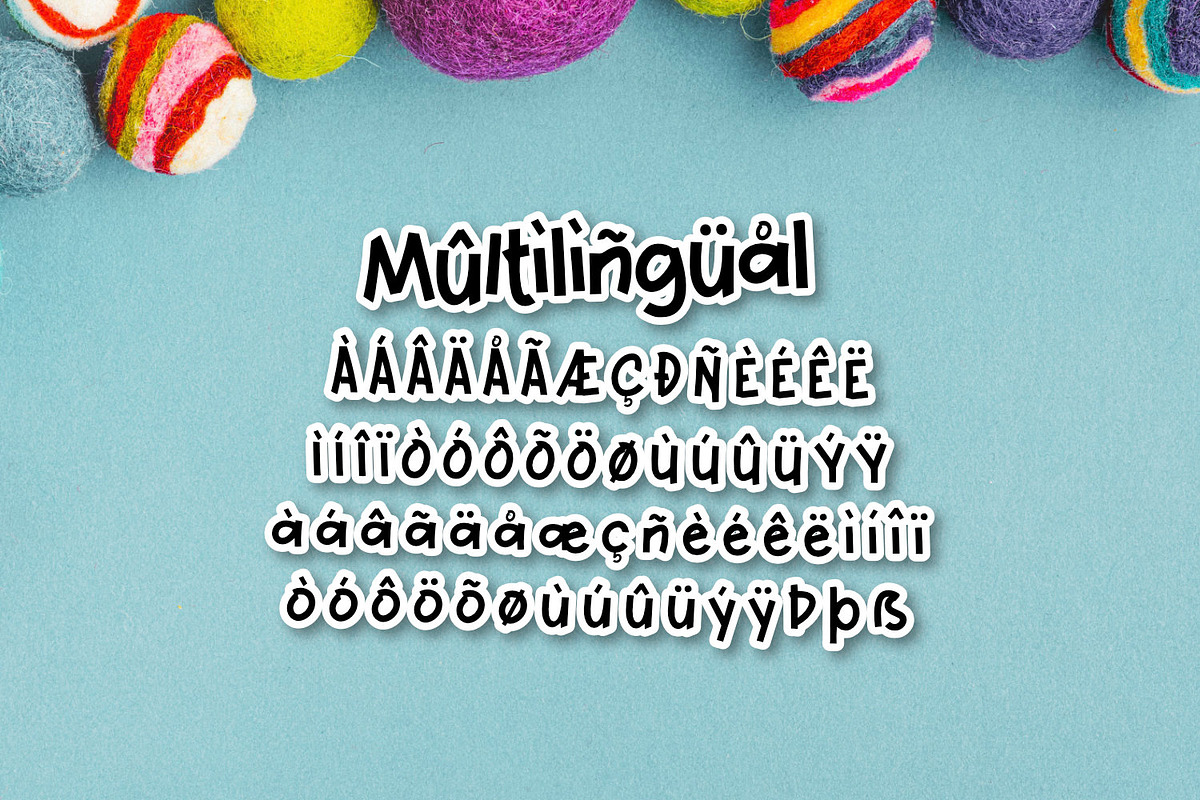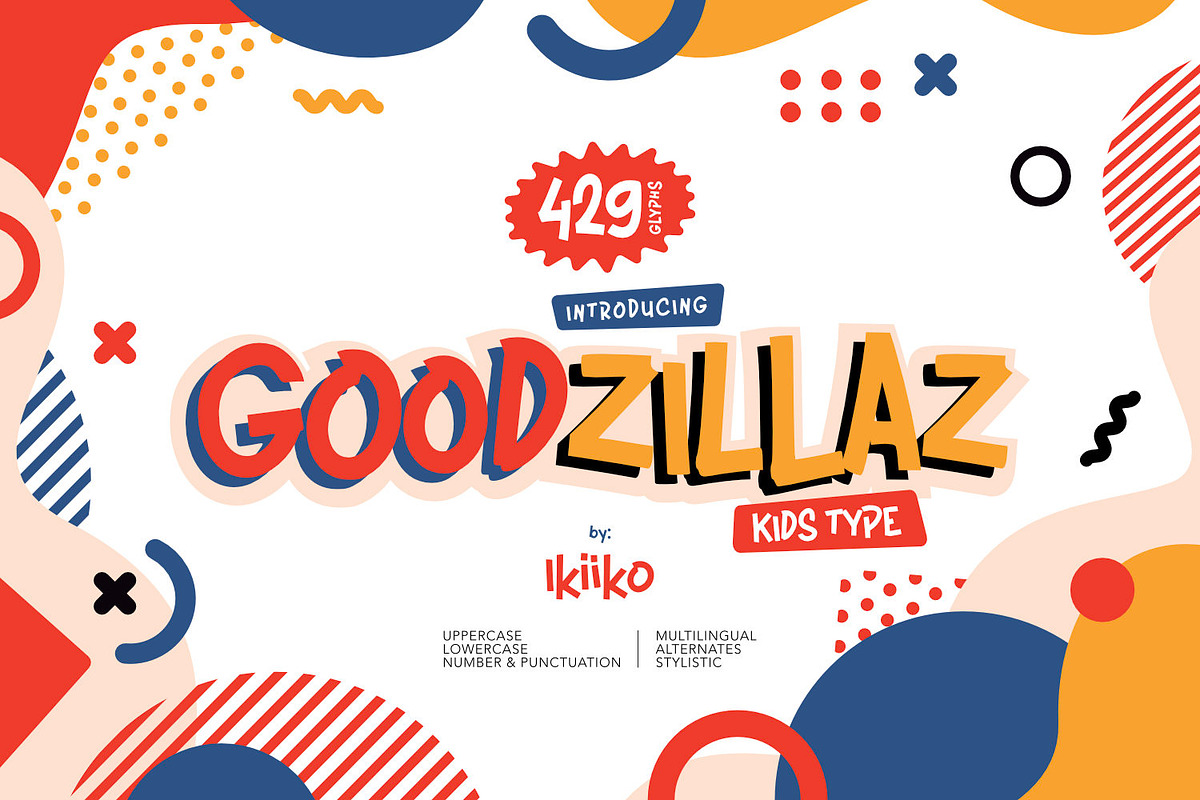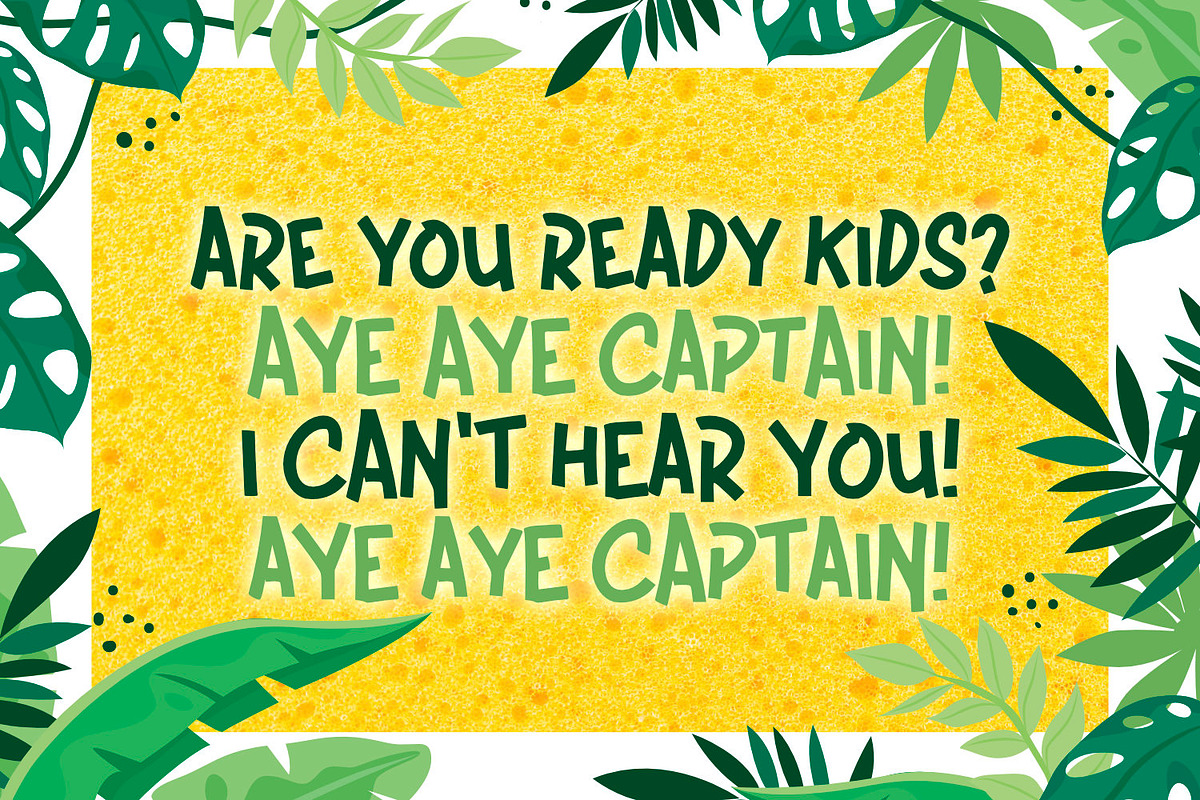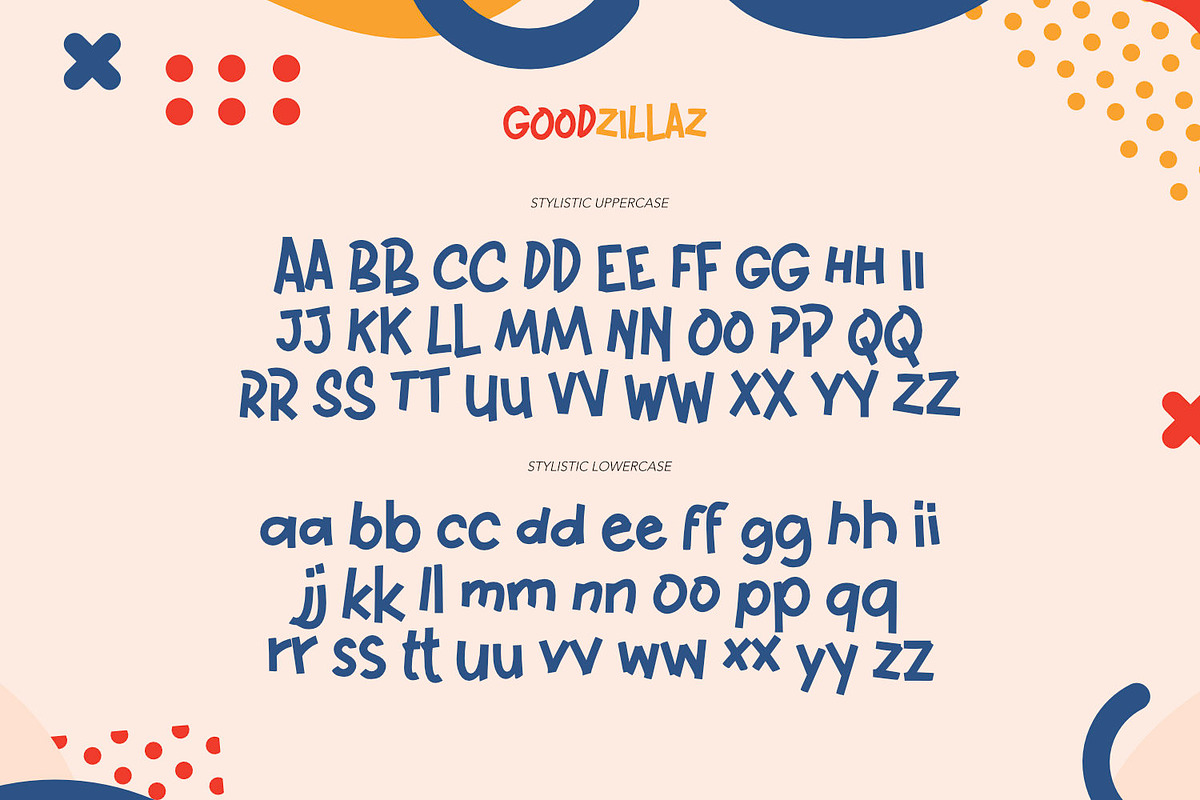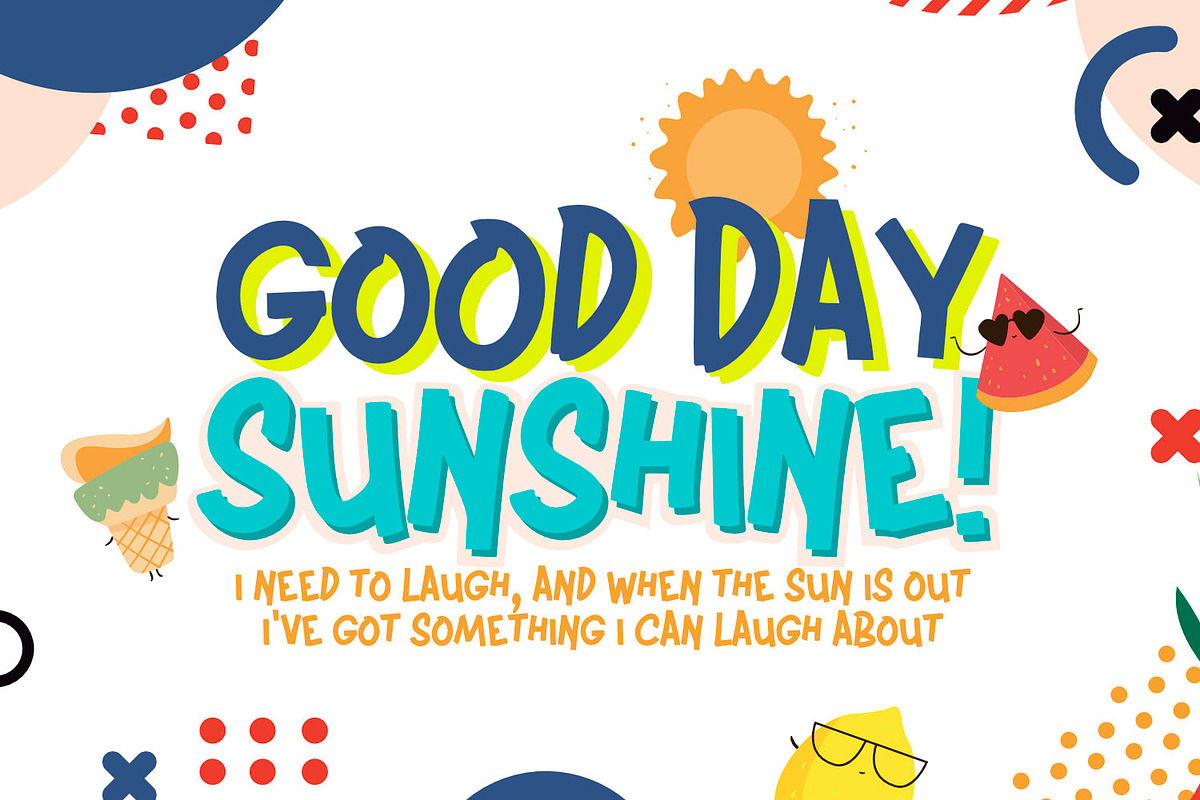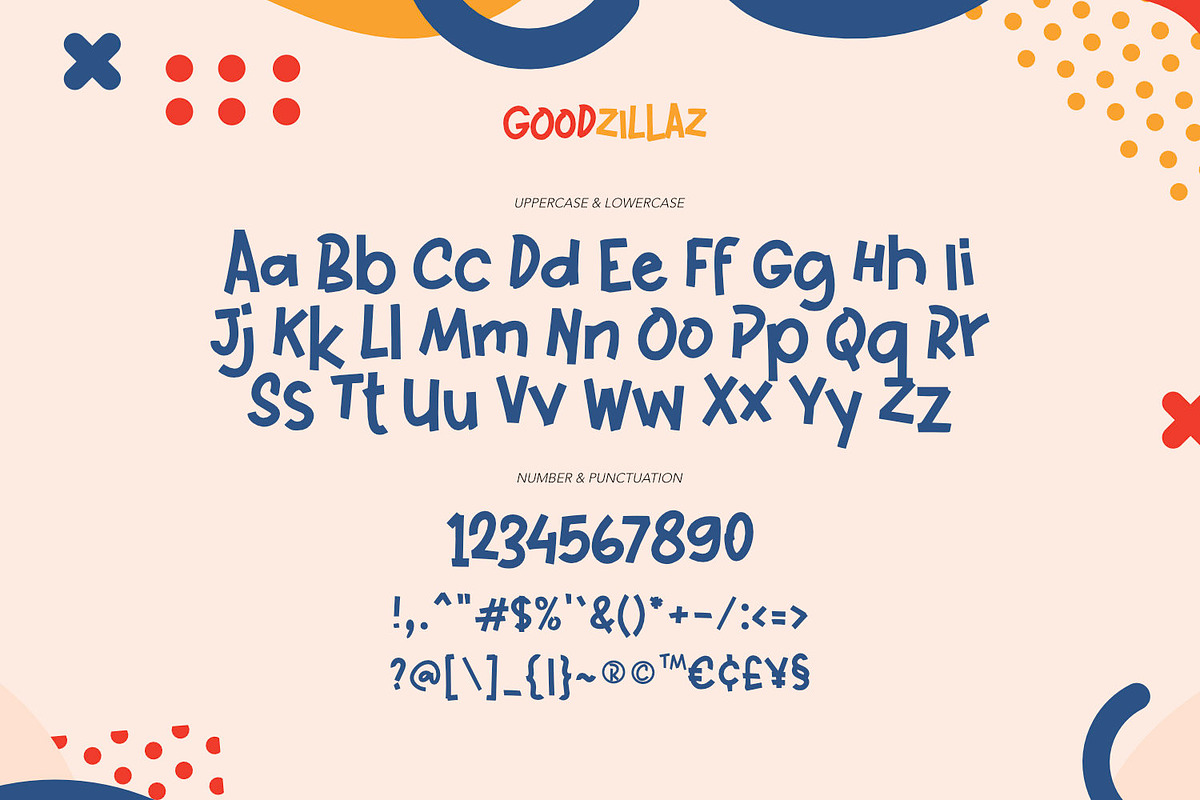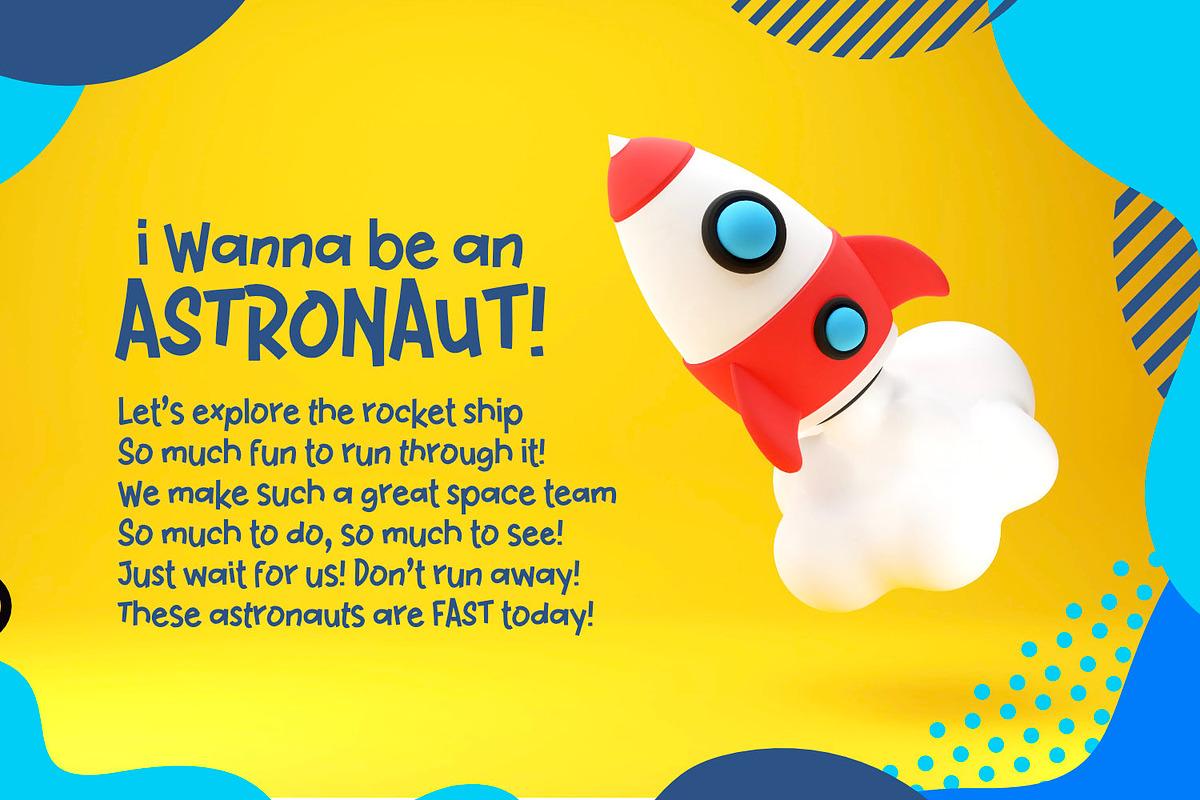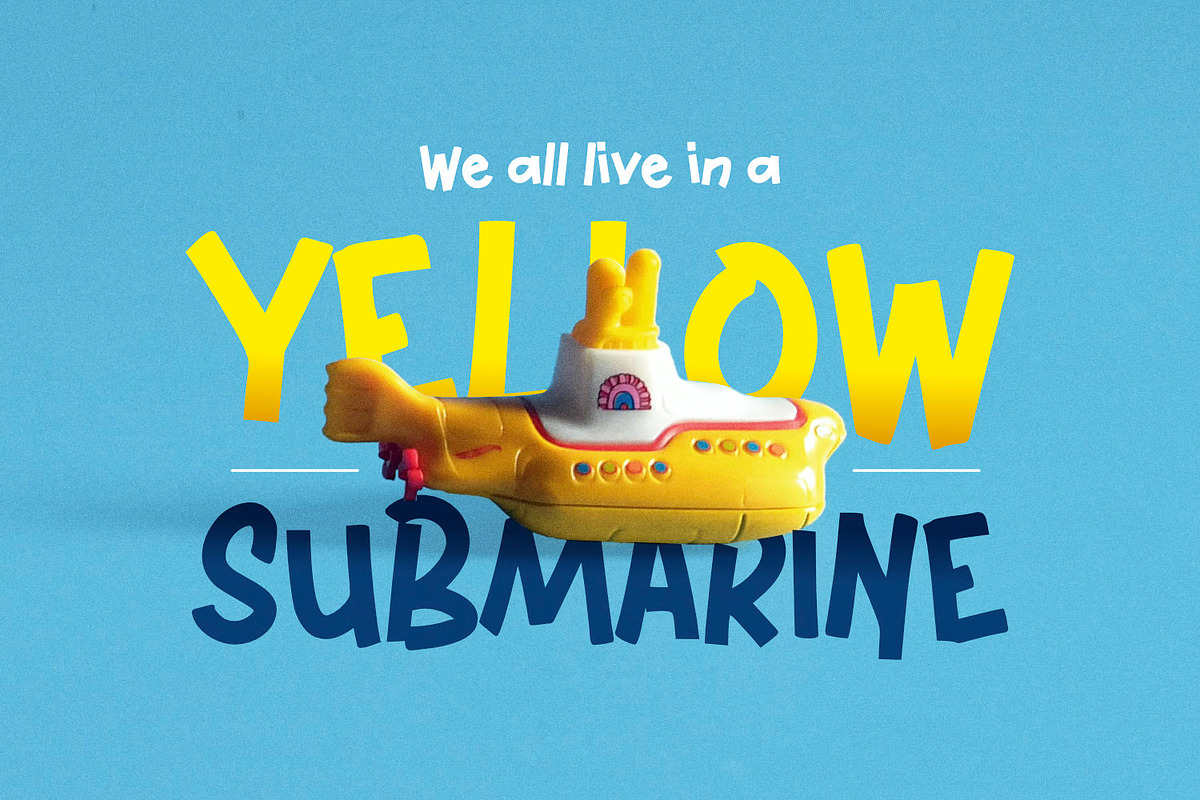
Goodzillaz - Kids Type
Introducing Goodzillaz - Kids Type, created by ikiiko.
Goodzillaz is a fun & playful typeface with a bouncing style. Unique gestures show joy and happiness vibes. This letter is suitable if you want to show a cheerful impression or playful design with solid color. This typeface is perfect for an kids stuff like ads, poster, flyer, or email blast. And also good for packaging product, food & beverages, quotes, or simply as a stylish text overlay to any background image.
- Number & Punctuation
- Stylistic & Alternates